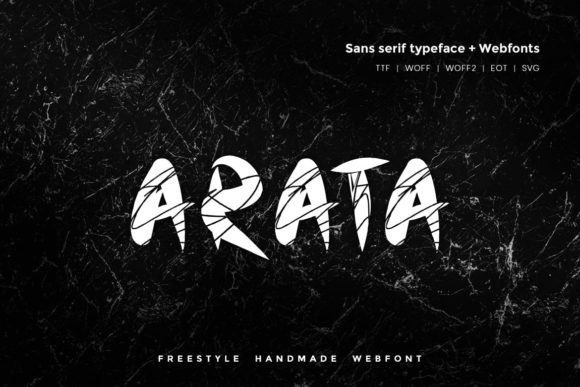
The Arata Font: A Unique Display Font for Creative Projects
I’ll never forget the time I was working on a branding project for a local coffee shop. My client wanted a bold, eye-catching logo that would stand out on their packaging and advertising materials. As I scrolled through font after font, nothing seemed quite right. That was until I stumbled upon the Arata font. Its scratchy, unique style immediately caught my attention, and I knew I had found the perfect fit. In this article, I’ll share my experience with the Arata font, its features, and how to make the most of it in your creative projects.
An Honest Review of Arata Font
What I Love About Arata Font
- ✨ Unique and eye-catching scratchy style
- ✅ Highly versatile for various design projects, including logos, branding, posters, and magazine covers
- 💡 Excellent for creating bold and attention-grabbing headlines
- 🎨 Great for designers looking to add a personal touch to their work
While Arata font is an excellent choice for many design projects, there are a few things to keep in mind:
- ⚠️ May not be suitable for body text or small font sizes due to its bold and scratchy style
- 🤔 Limited legibility at very small sizes or from a distance
The Backstory of Arata Font
The Arata font was designed with the intention of creating a unique and eye-catching display font. While the designer’s exact inspiration may be unknown, it’s clear that they aimed to create a font that would stand out in a crowd. With its scratchy style and bold personality, Arata font is perfect for designers looking to add a personal touch to their work.
| Font Name | Arata Font |
| Author | Webhance |
| What type of projects is Arata font best suited for? | Arata font is ideal for logos, branding, posters, magazine covers, and other design projects that require a bold and eye-catching headline. |
| Can I use Arata font for body text? | While Arata font can be used for body text, it may not be the best choice due to its bold and scratchy style. It’s better suited for headlines and titles. |
| Is Arata font available in different weights or styles? | Arata font may come in different weights or styles, depending on the version you have. Check the font’s documentation or contact the designer for more information. |